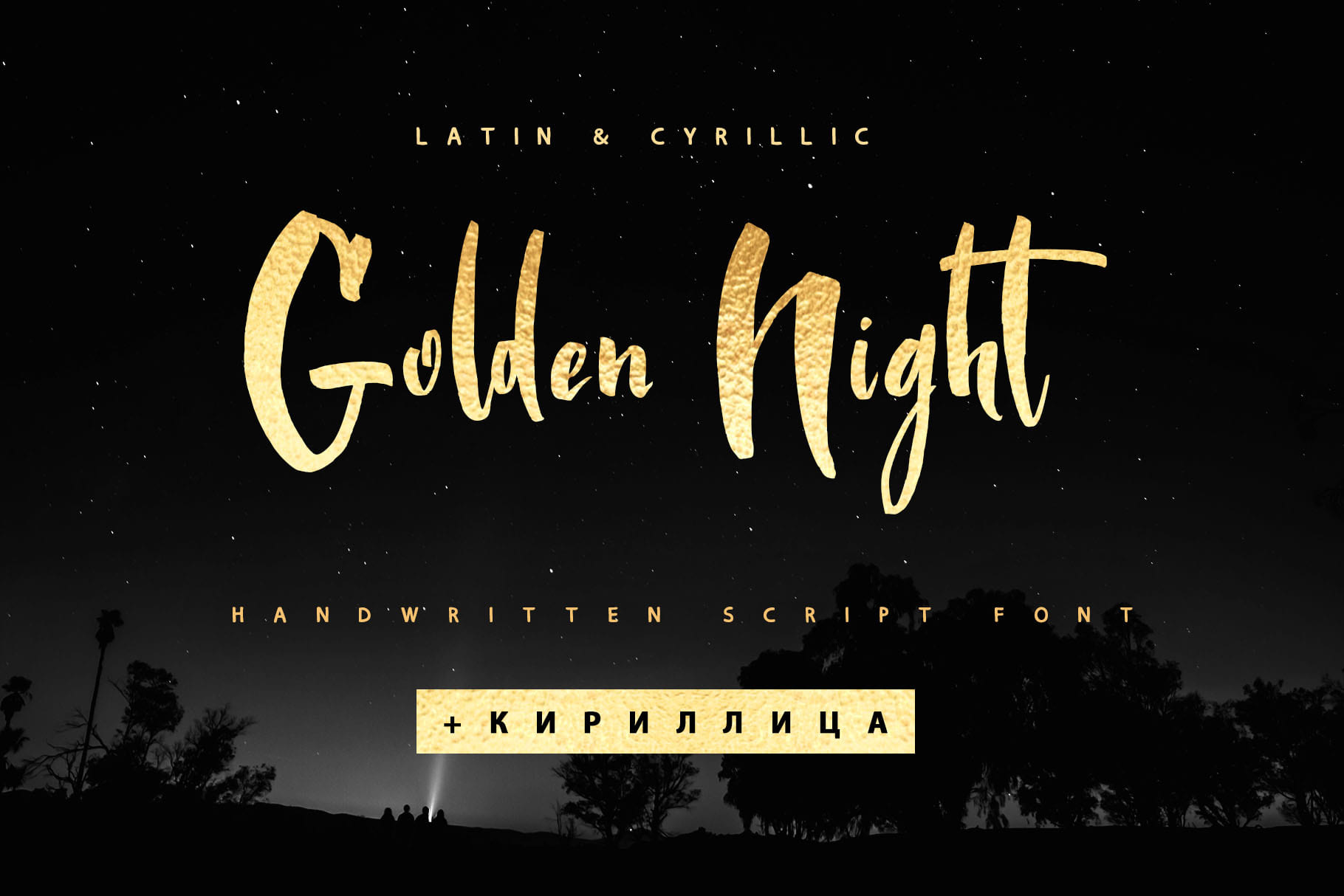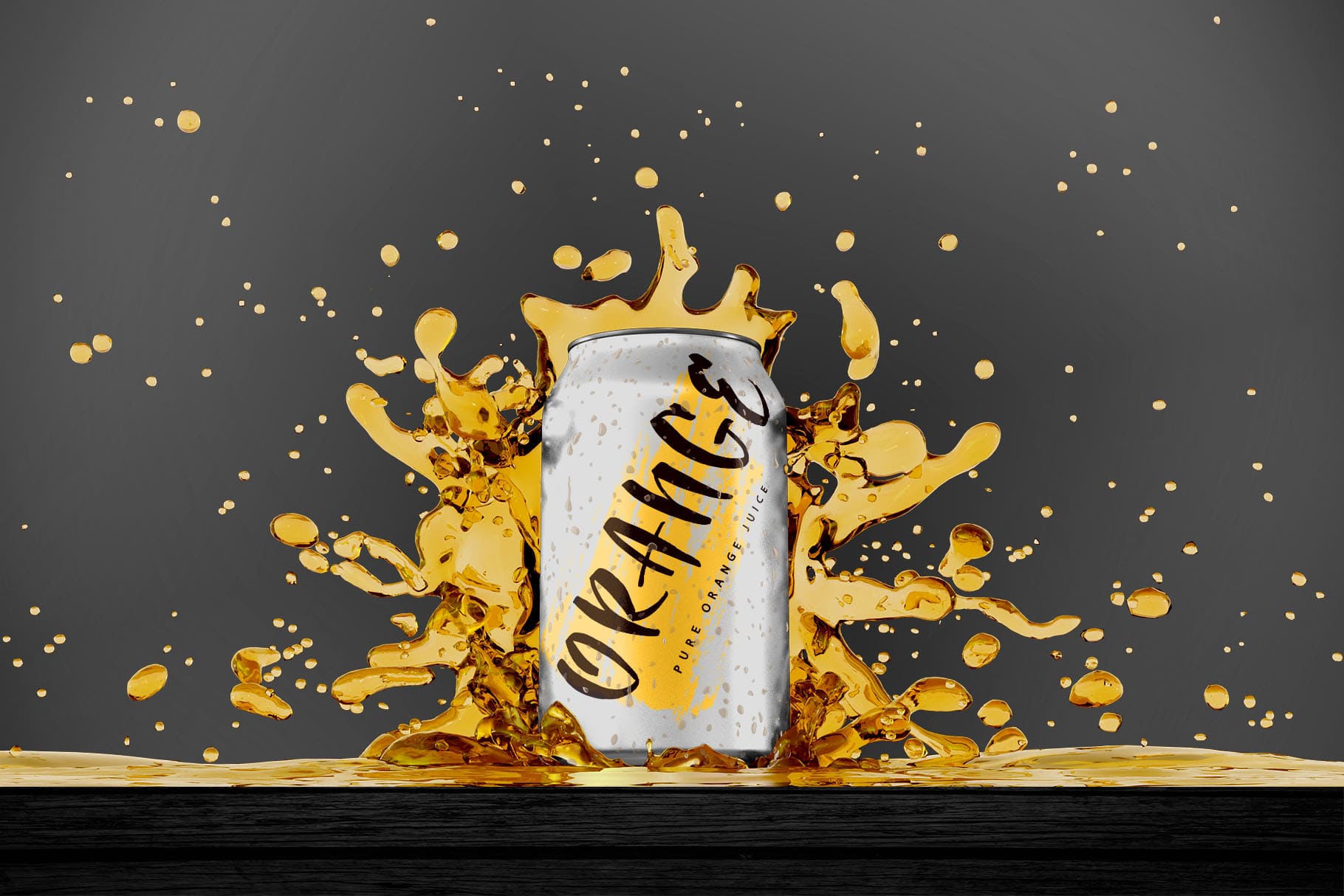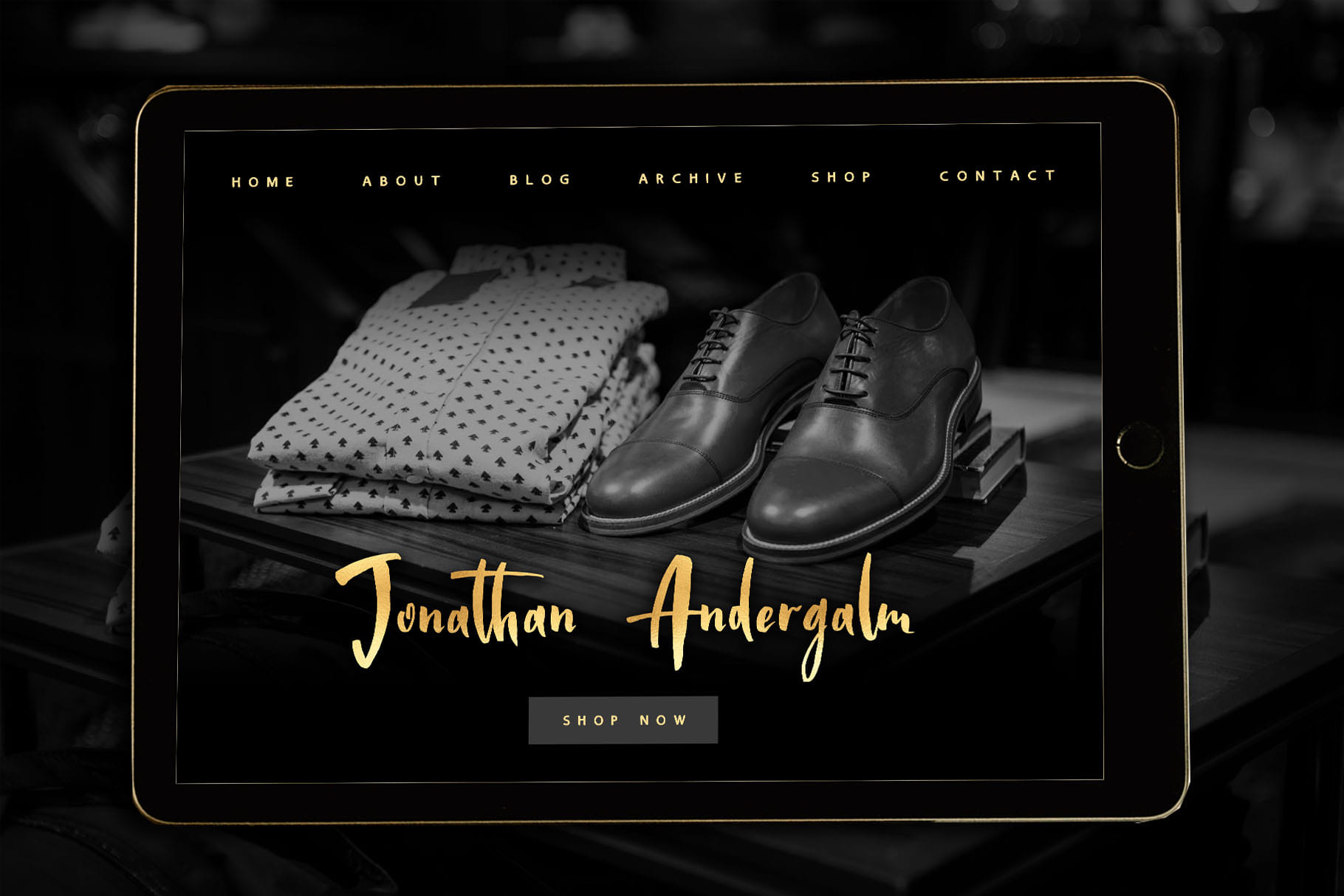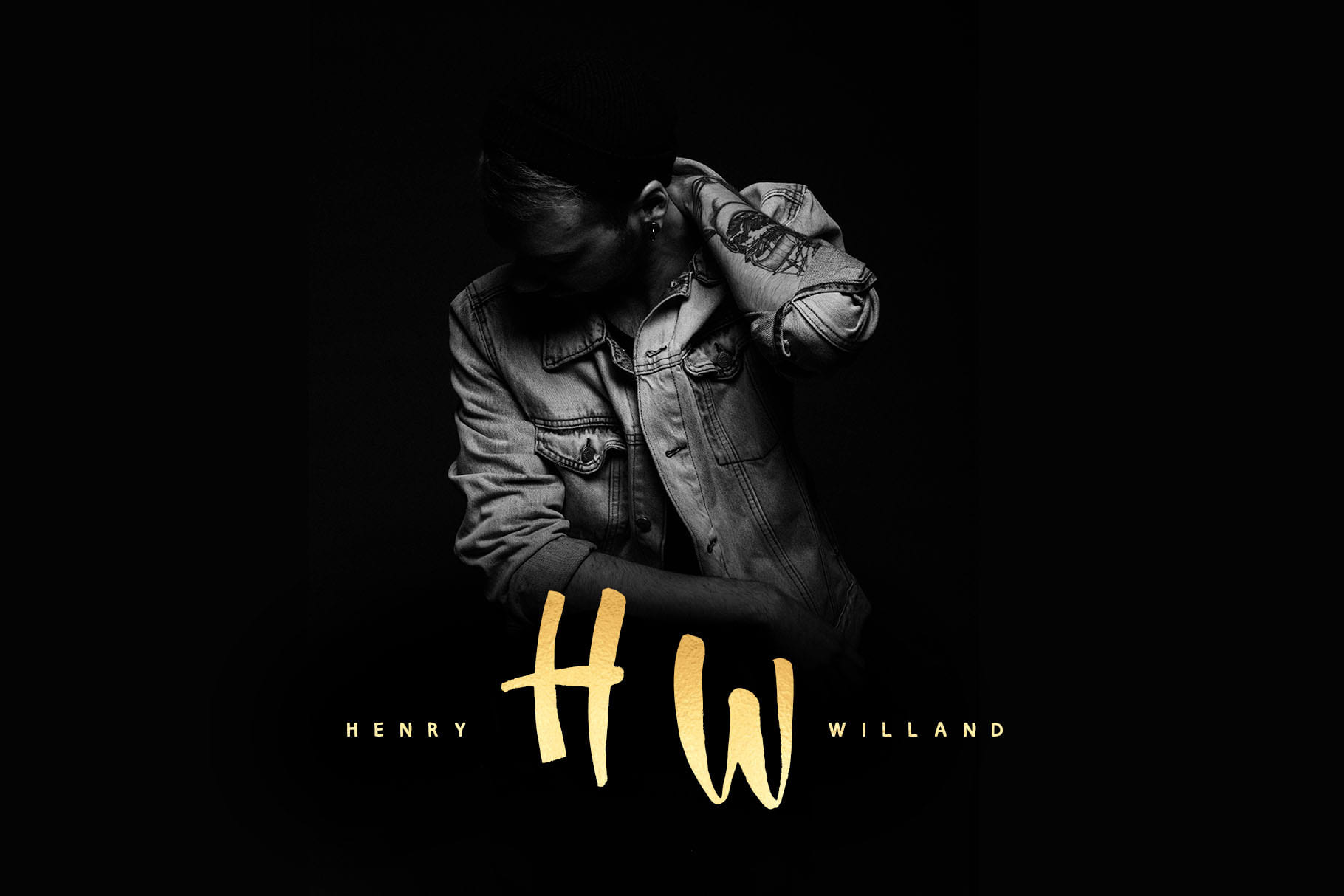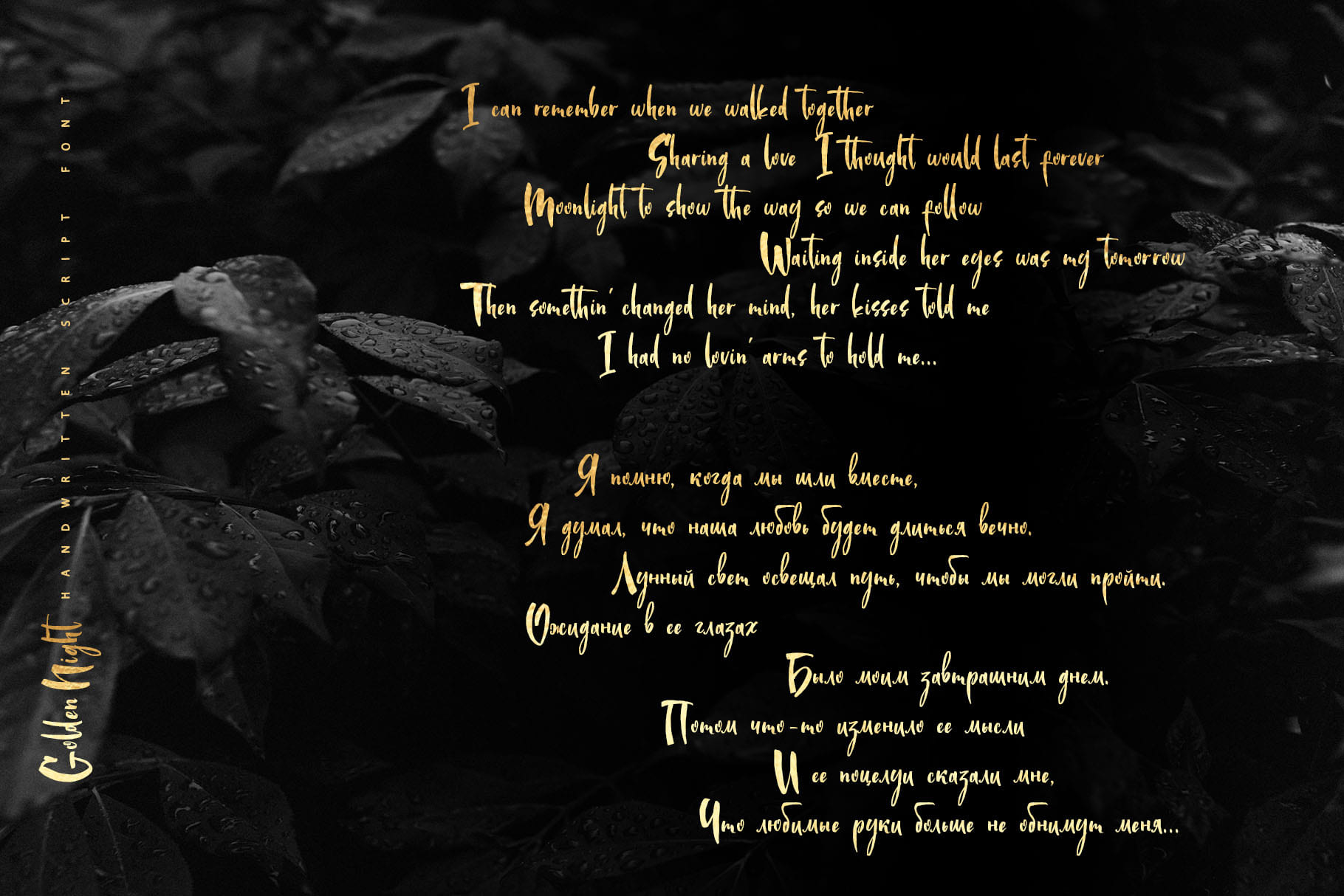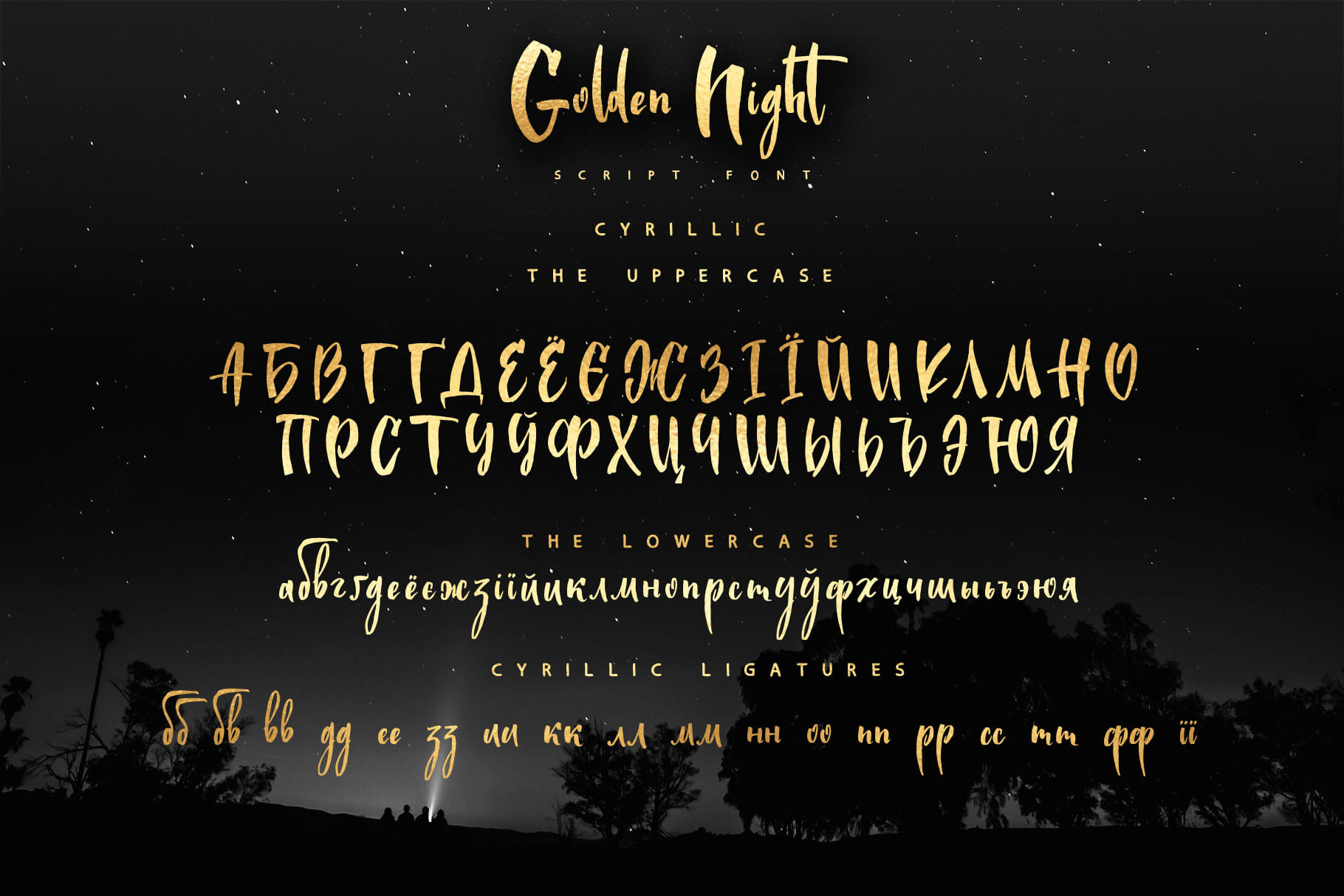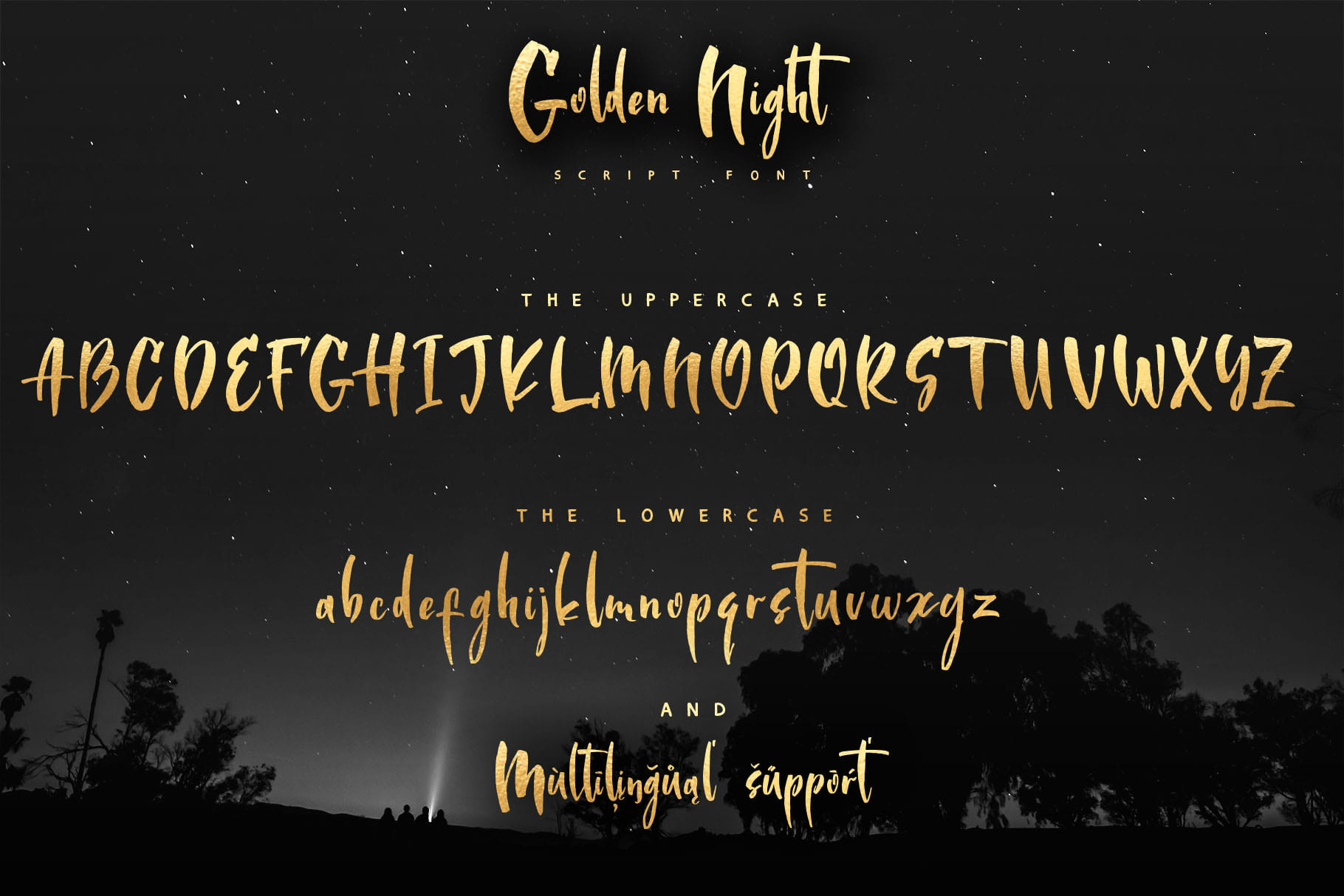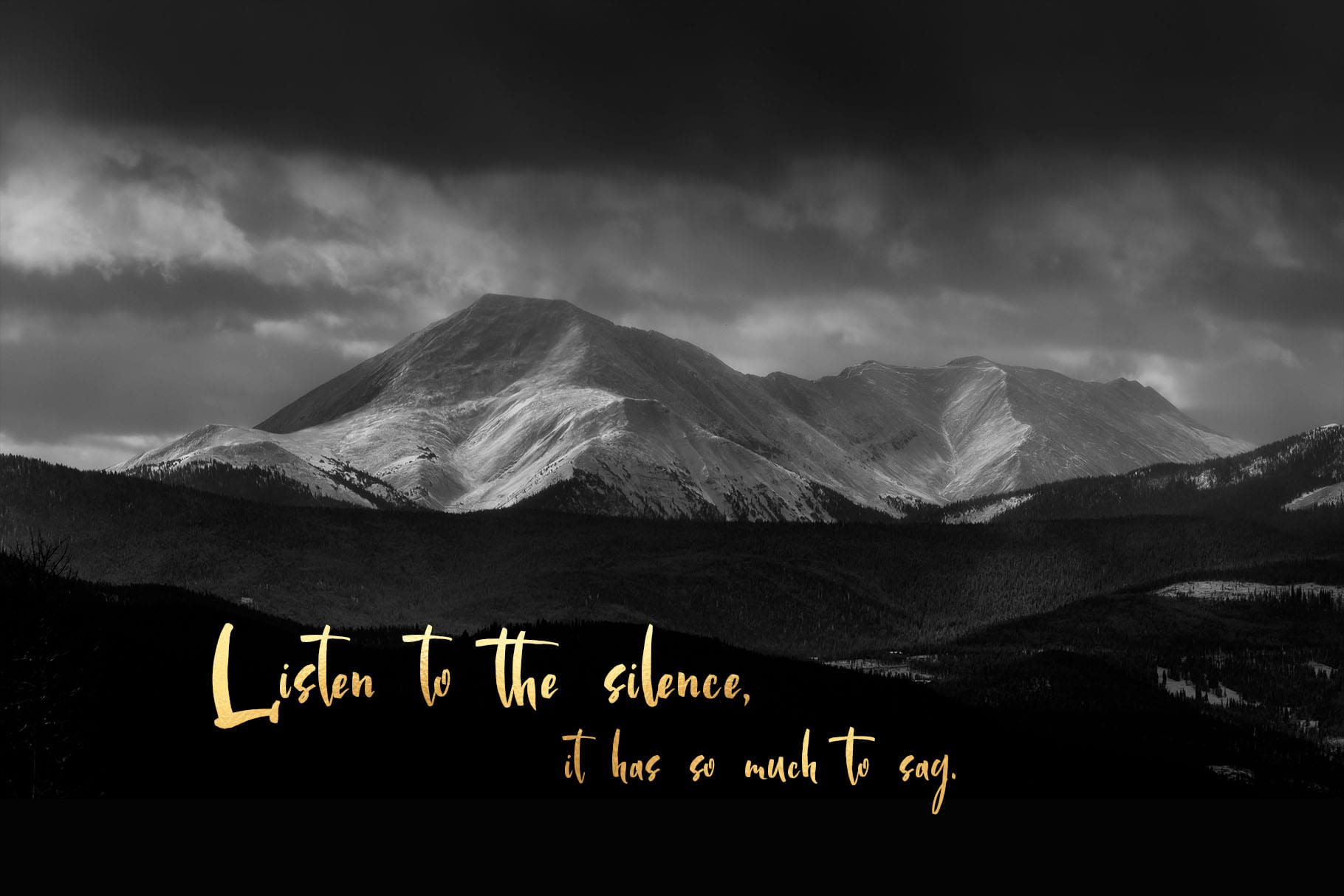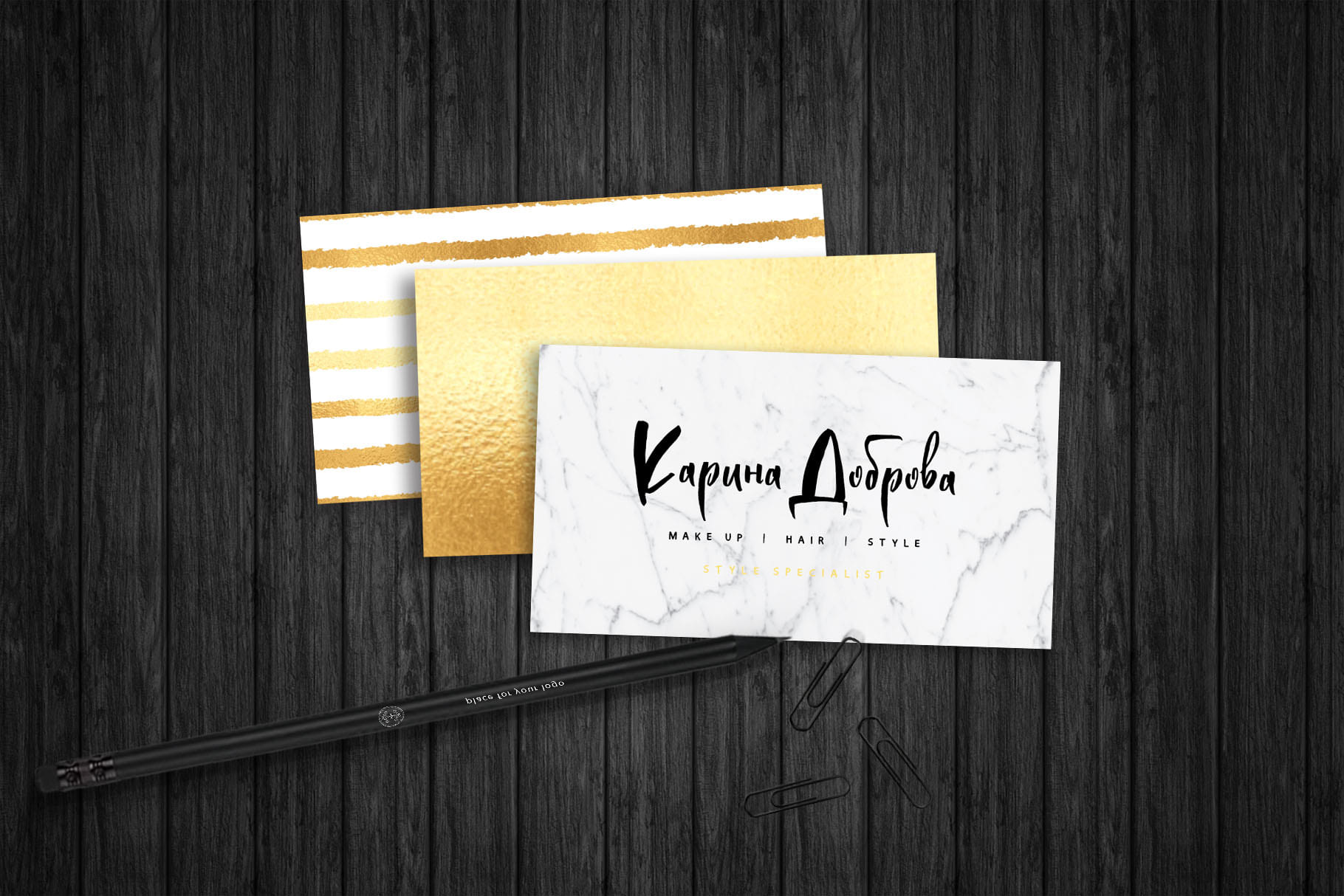
Golden Night Cyrillic (1 font)
Golden Night script contains a full set of uppercase and letters and 32 ligatures - which can be used to create a handwritten look.
Extensive language support is included for Western European, Central, and South East European too. Multilingual Support for 27 languages: Afrikaans, Albanian, Basque, Bosnian, Catalan, Danish, Dutch, English, Estonian, Faroese, Filipino, Finnish, French, Galician, Indonesian, Irish, Italian, Malay, Norwegian Bokmål, Portuguese, Slovenian, Spanish, Swahili, Swedish, Turkish, Welsh, Zulu
And Cyrillic glyphs support for Russian, Belorussian, Bulgarian and Ukrainian languages.